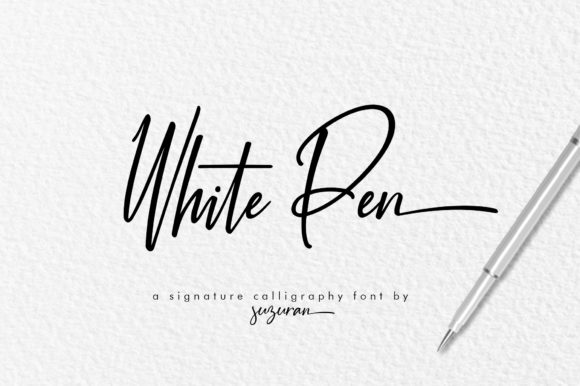
**Introducing the White Pen Script Font: Capture the Essence of Grace and Elegance**
Embark on a captivating journey with the White Pen Script Font, an exquisite creation that effortlessly blends the allure of handwritten artistry with the precision of digital typography. This captivating script font, crafted with meticulous attention to detail by the esteemed suzurantype, exudes a rare charm that will elevate your creative endeavors to new heights.
Step into a realm of boundless imagination, where the White Pen Script Font transforms your words into enchanting works of art. Its whimsical yet refined curves dance across the page, evoking a sense of timeless elegance and playful delight. Whether you seek to craft a captivating logo that leaves a lasting impression, design a poster that commands attention, or create a wedding invitation that captures the essence of your special day, the White Pen Script Font is your indispensable companion.
**Why Choose the White Pen Script Font?**
- **Captivating Elegance:** Elevate your designs with a font that radiates grace and charm, adding an unforgettable touch to every project.
- **Boundless Versatility:** Express yourself freely with a font that effortlessly adapts to a wide range of design styles, from classic to contemporary.
- **Unleash Your Creativity:** Let your imagination soar as you explore the endless possibilities offered by this versatile and inspiring font.